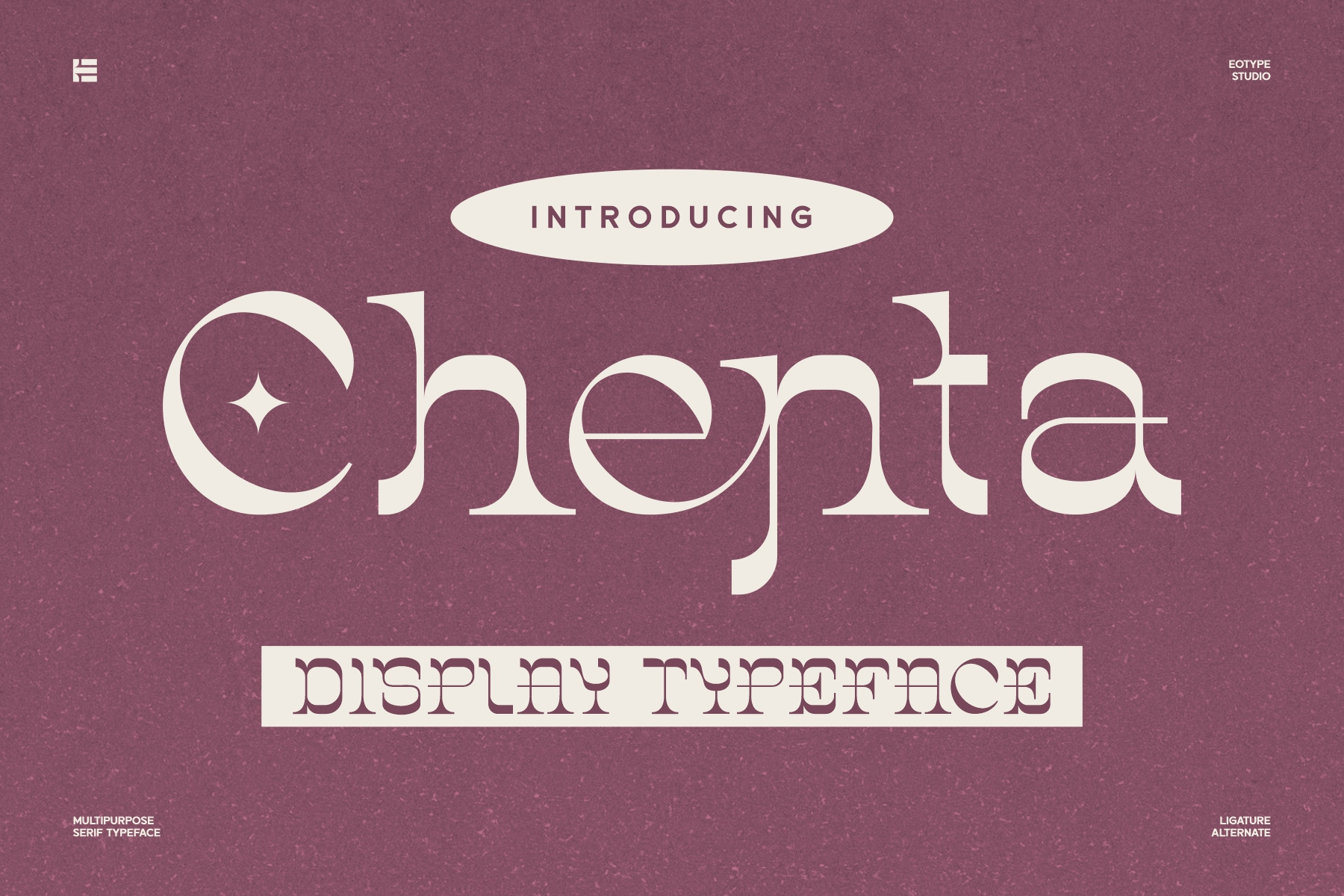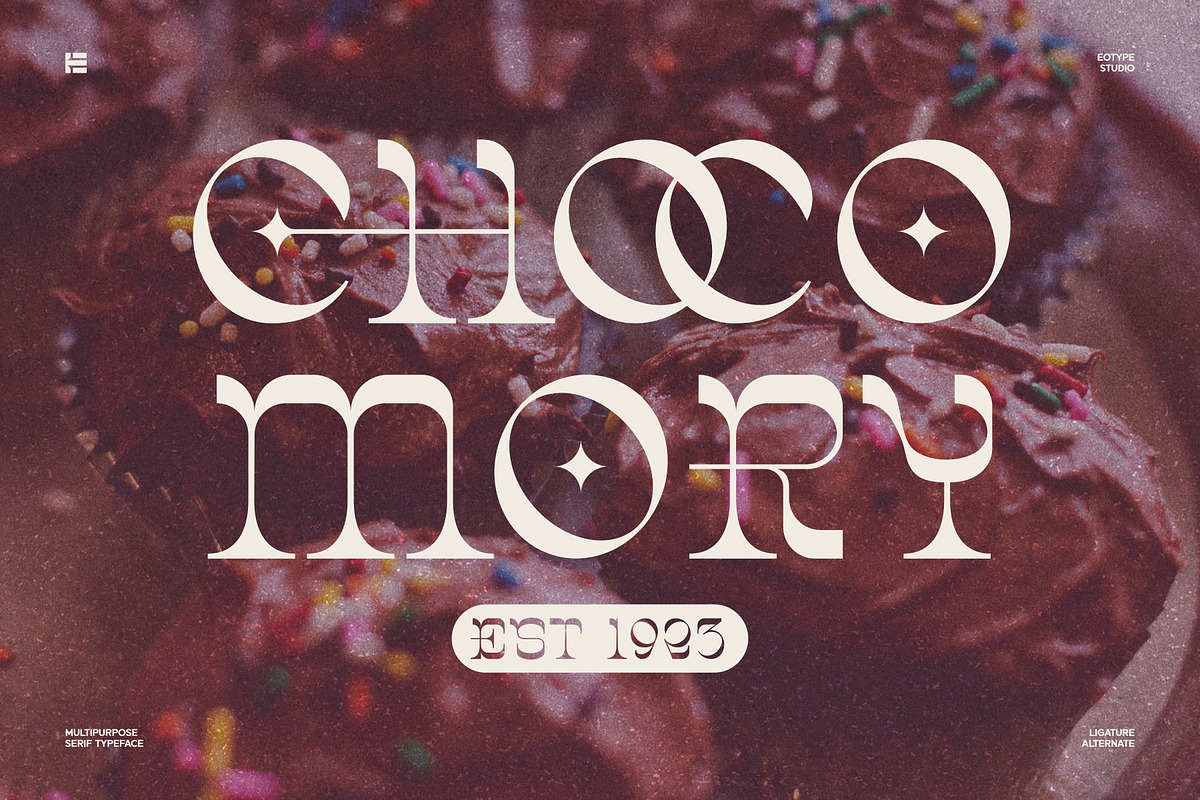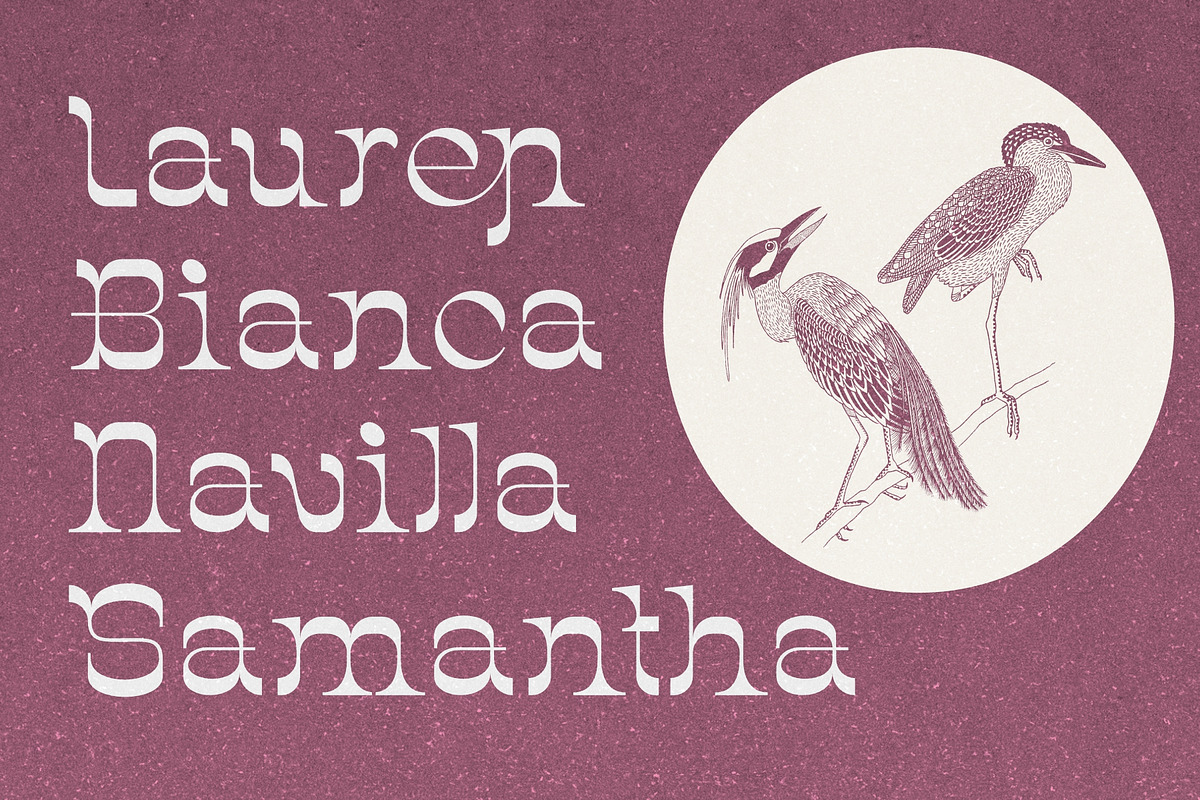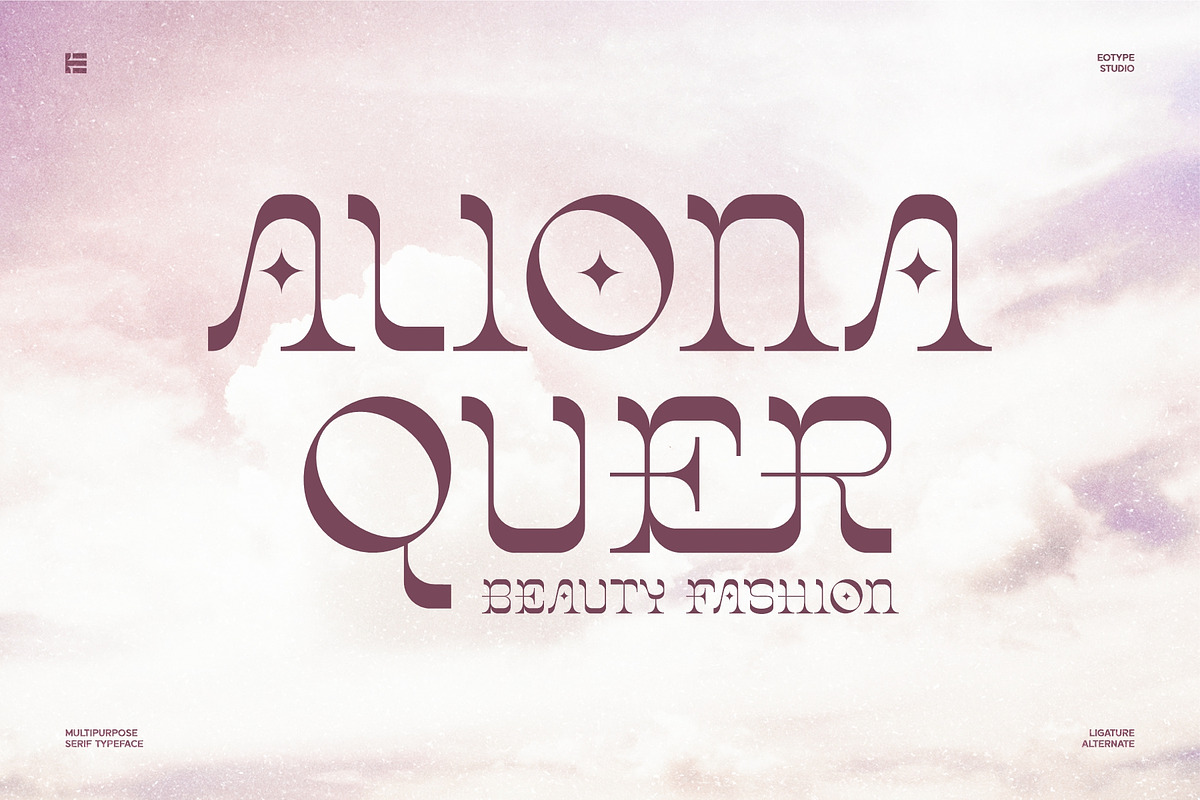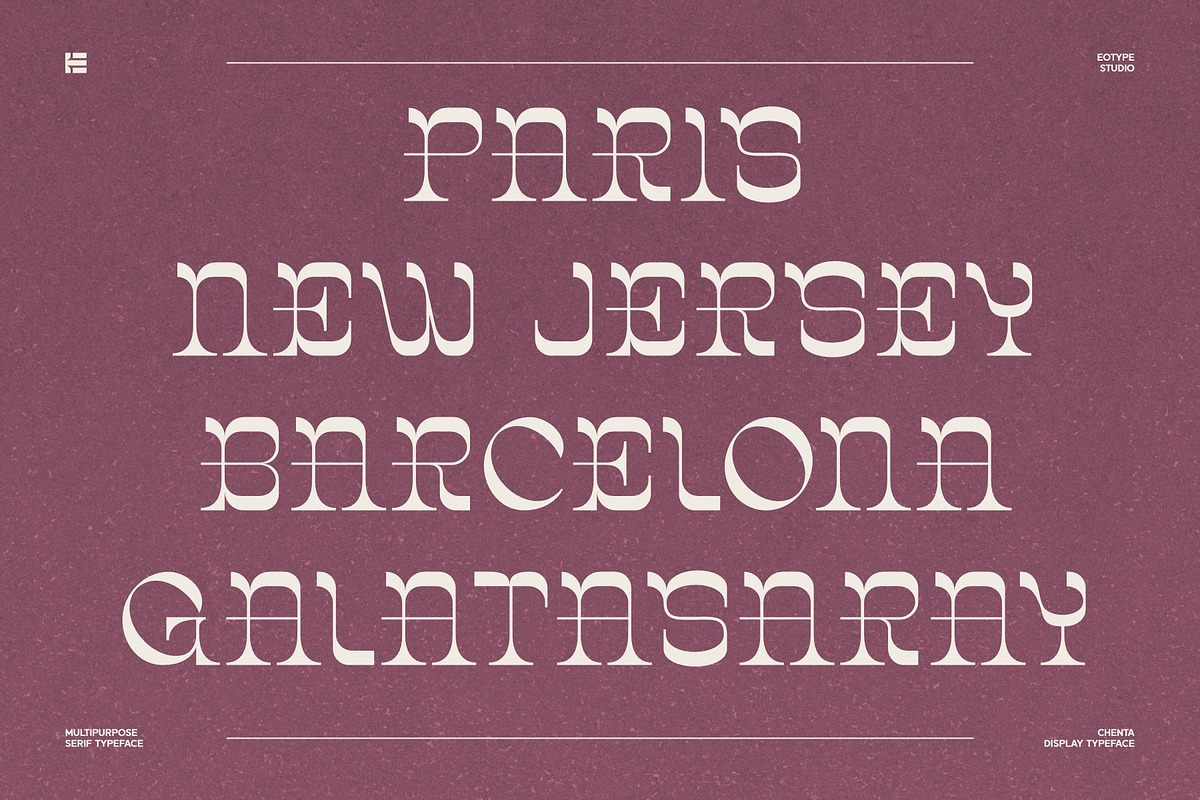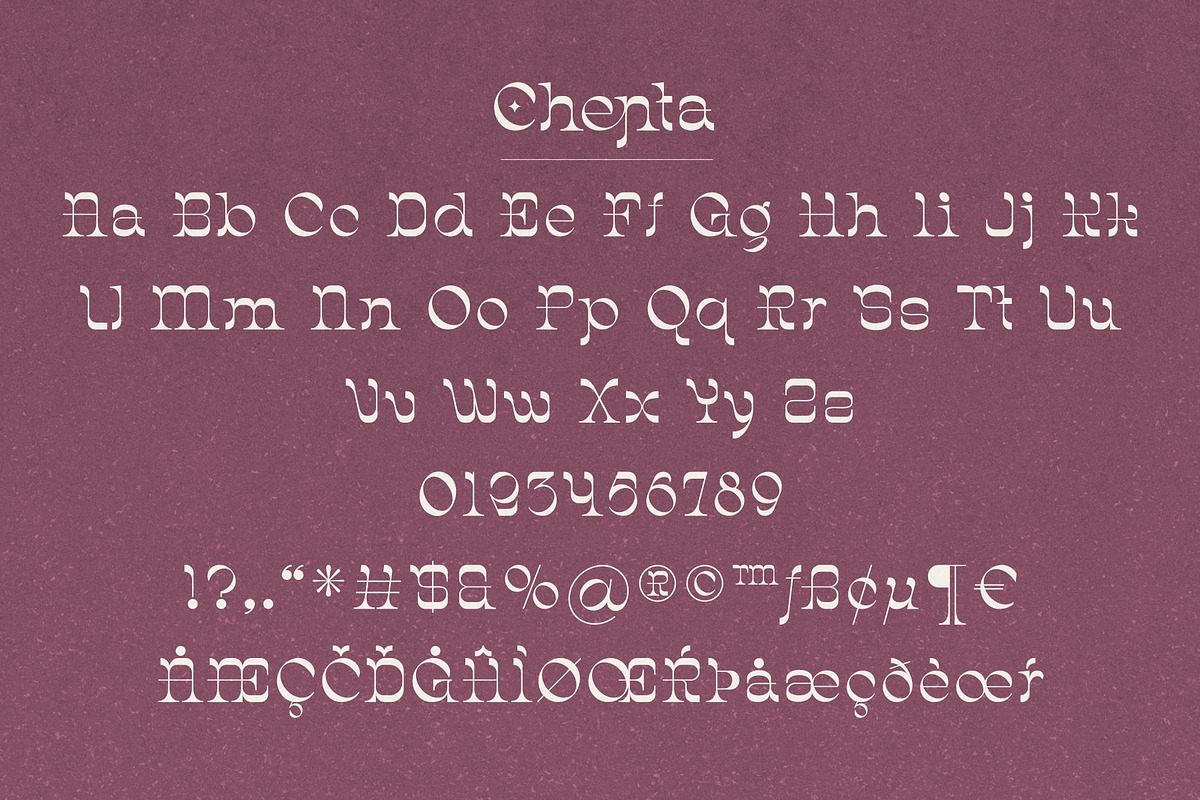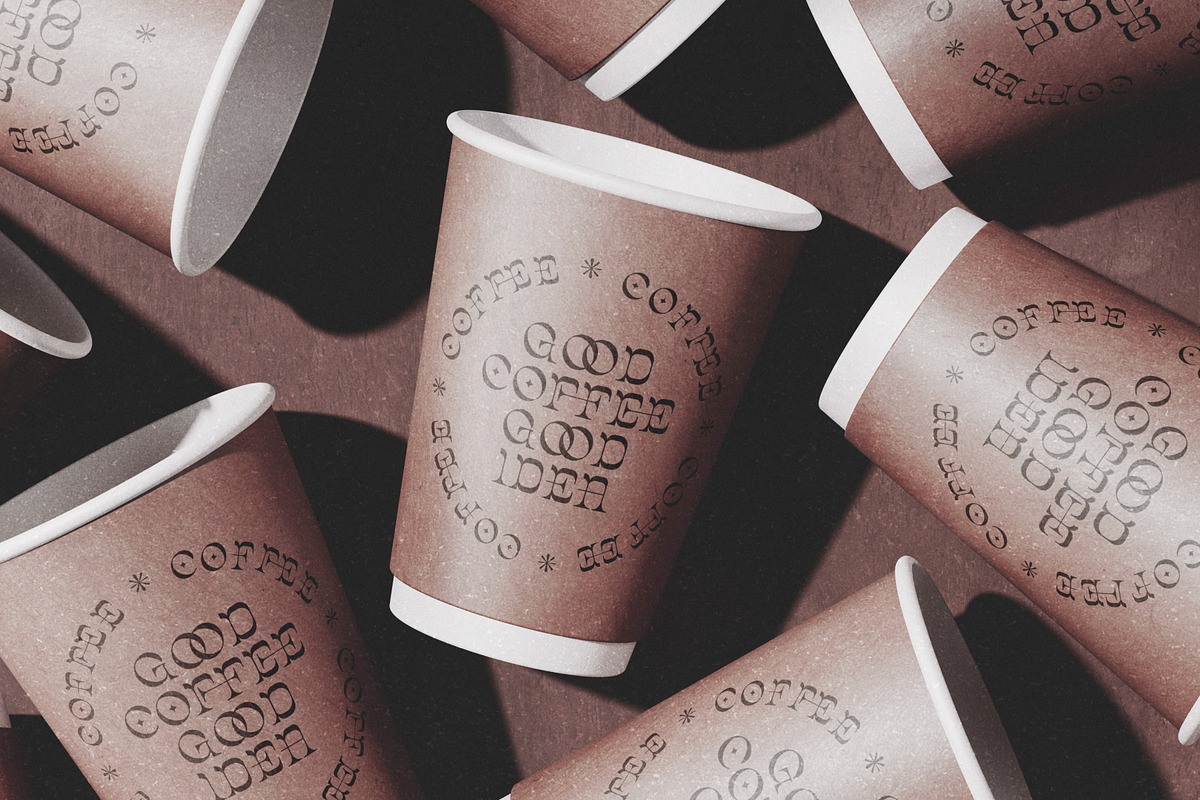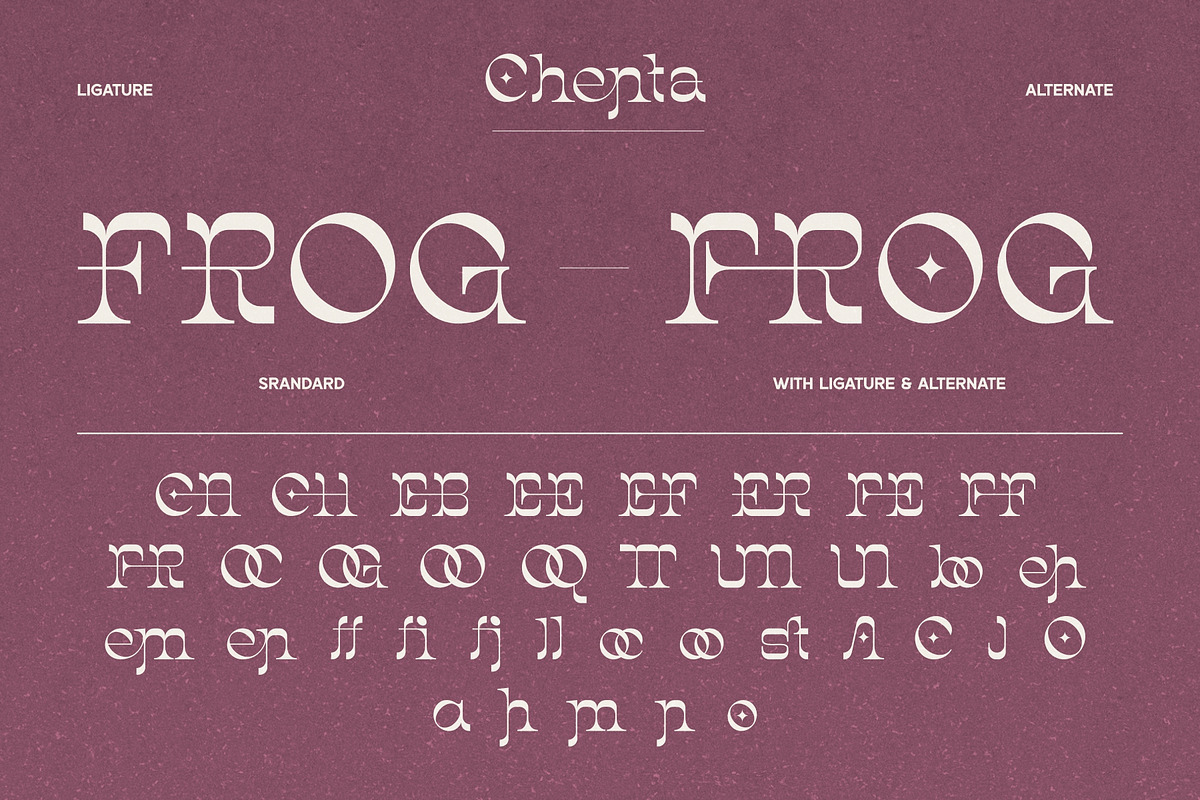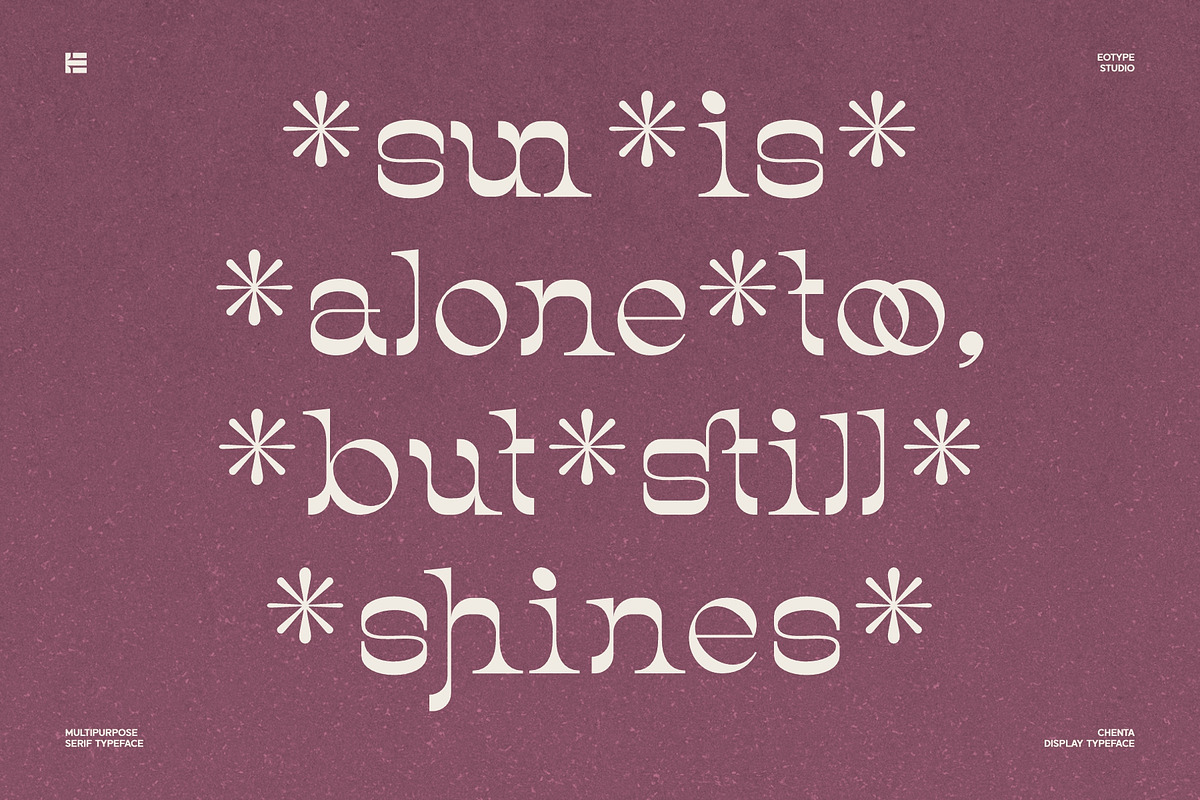
Chenta | Serif Display Font
Chenta is a wide serif display font that has beautiful curves. Each end is made slightly rounded giving the impression of a comfortable and friendly. Chenta provides a collection of glyphs with unique shapes. With alternative styles and ligature features, this font is perfect for complementing various projects.